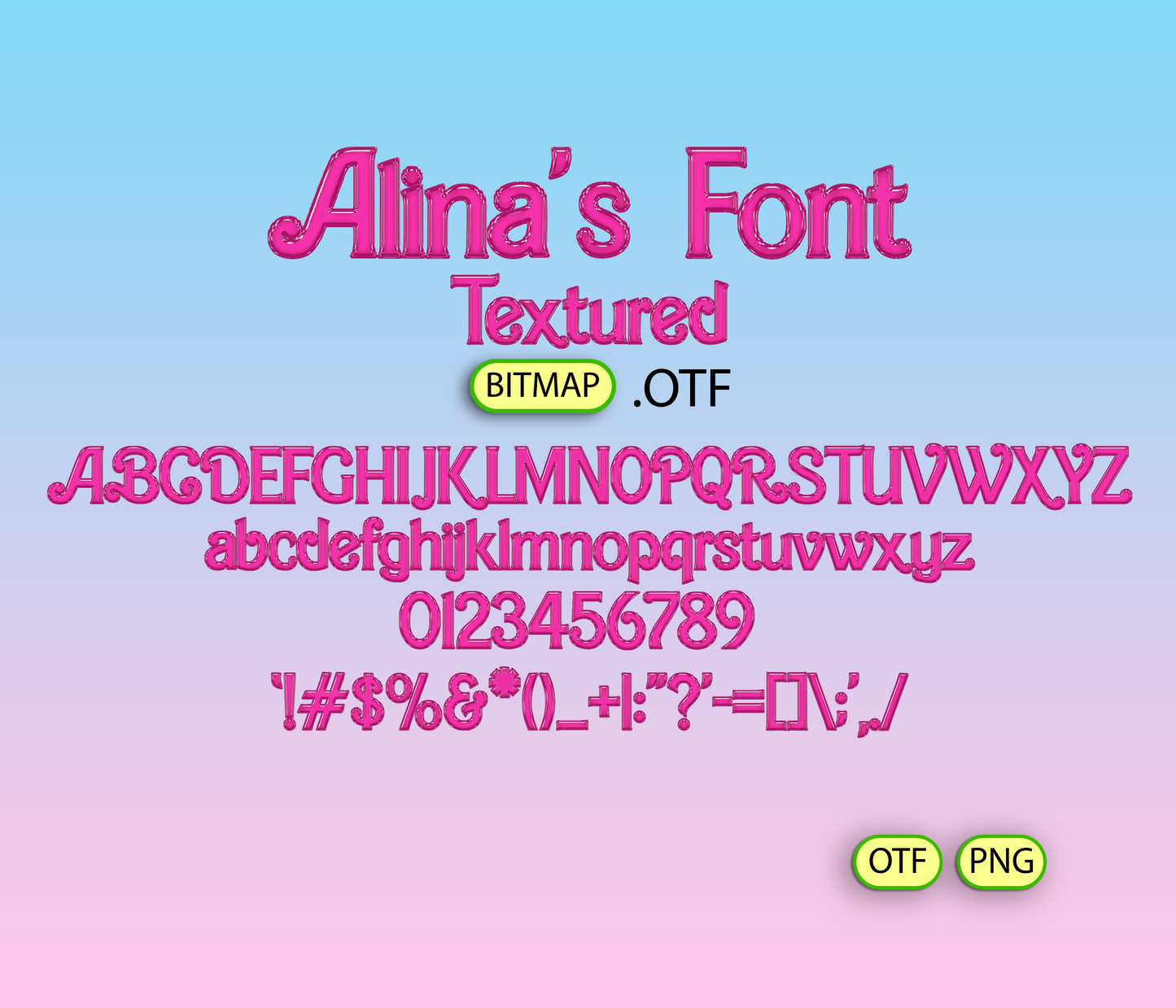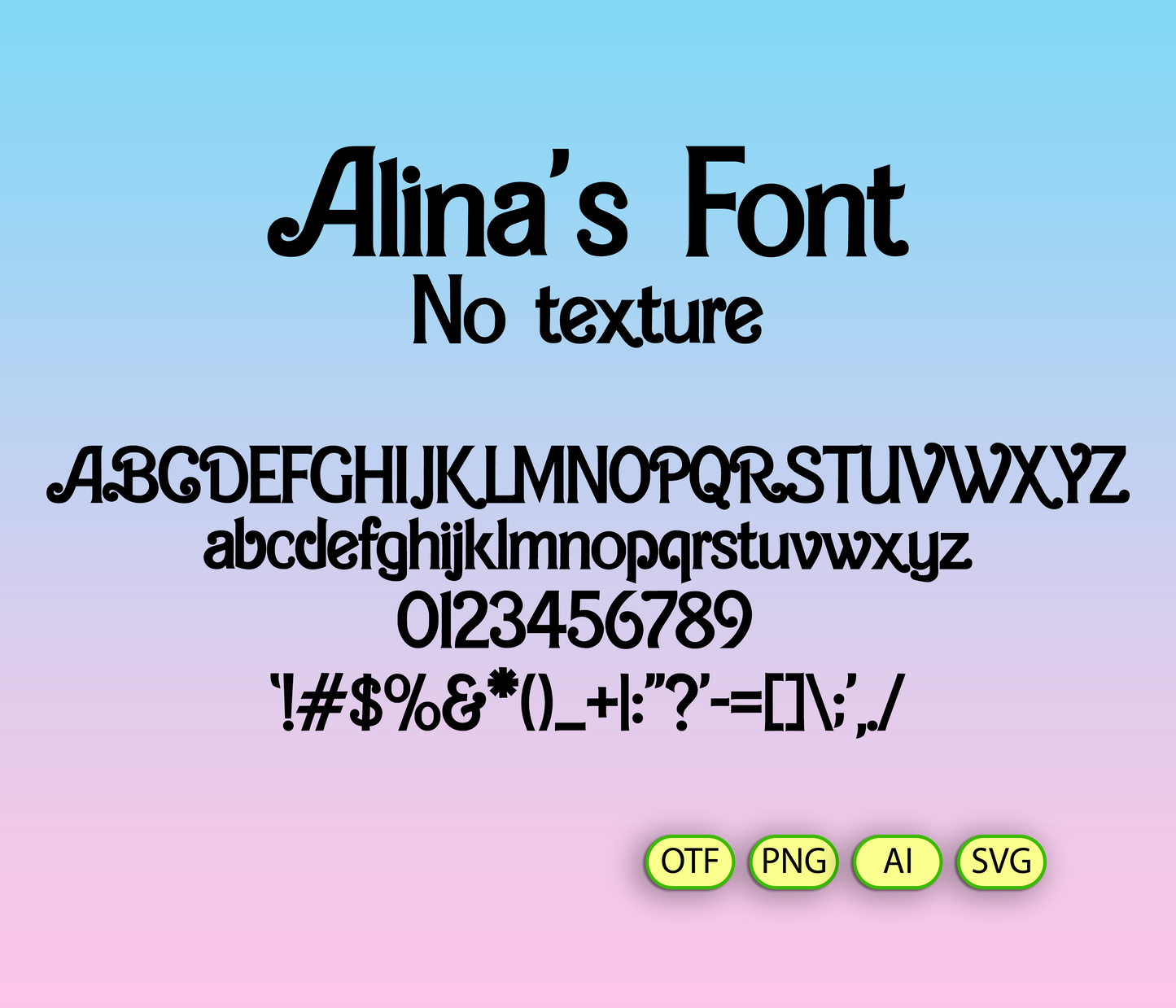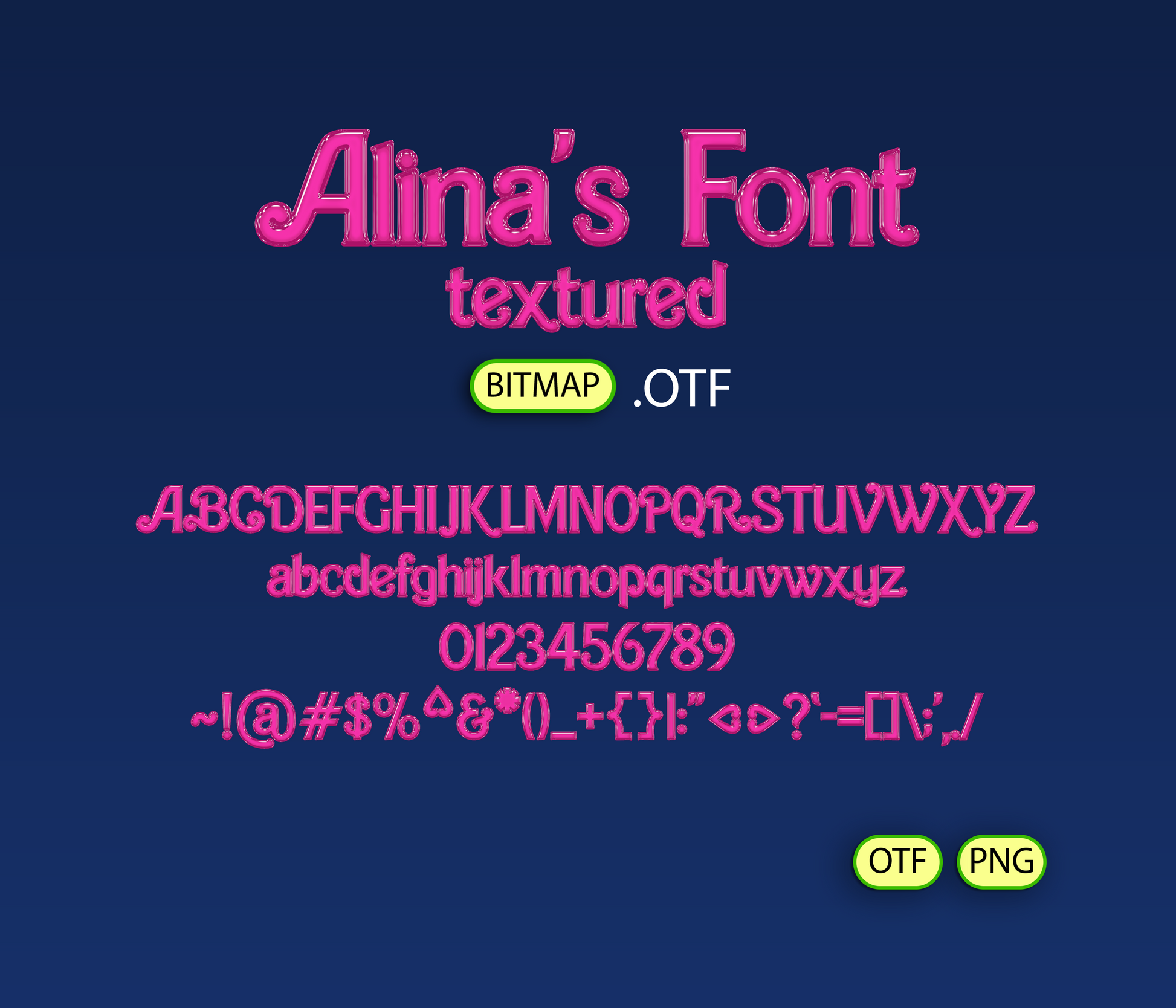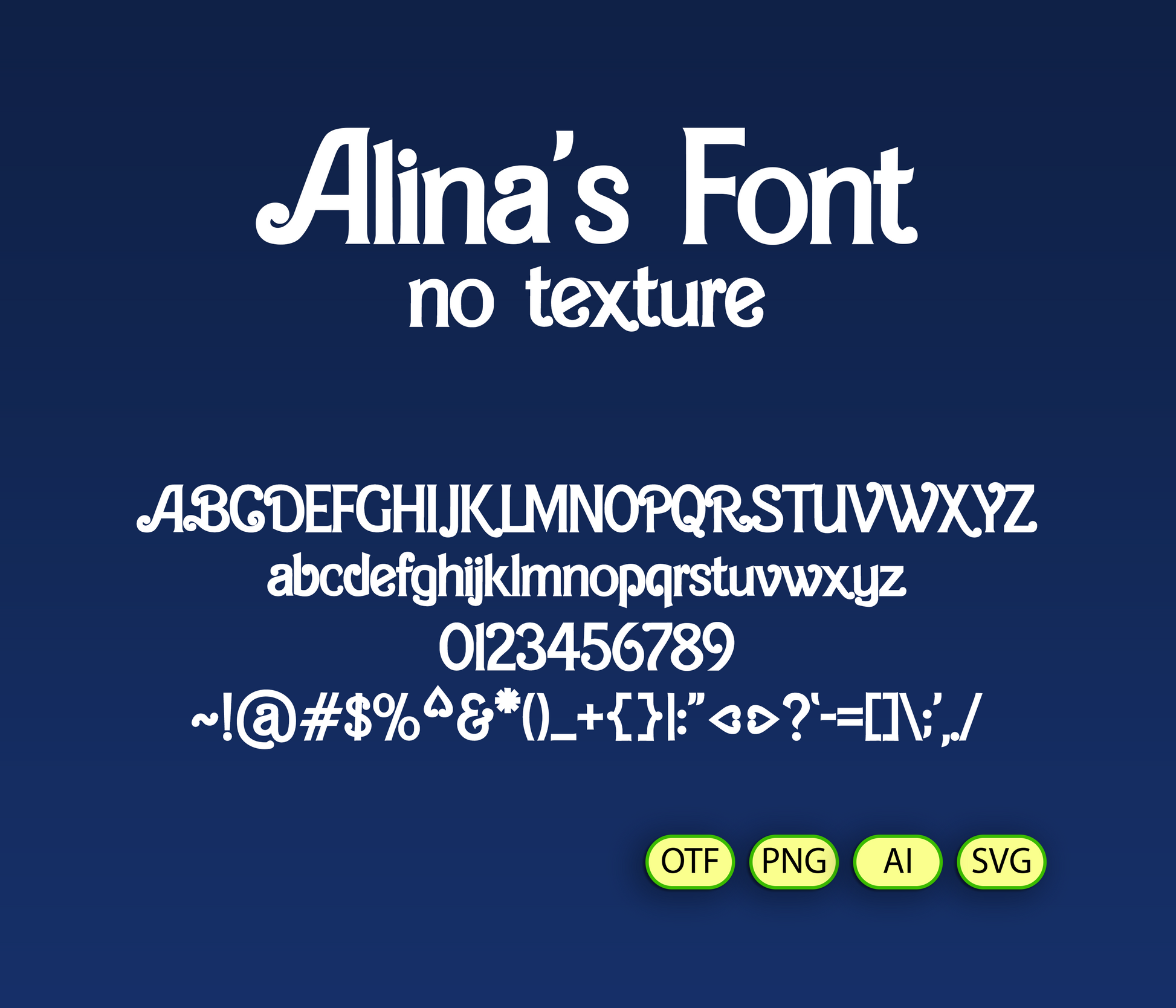
Glamour Girl Font Textured
Glamour Girl: A Graceful and Stylish Font for Fashion Doll Lovers
Do you love iconic fashion dolls and their fabulous world of style, fun, and adventure? Do you want to create your own projects with a font that captures the essence of a beloved doll brand? If so, you will love this amazing free fashion doll inspired font that is perfect for your Cricut machine.
What font is the Glamour Girl font?
It's a beautifully crafted typeface that embodies elegance, charm, and vibrant personality. Each character in this font has been designed with a flair that mirrors a unique fashion sense, blending classic femininity with a modern twist. The font features a complete set of characters, including alphabets, numbers, and special symbols, making it a versatile choice for a wide range of creative projects.
What Can You Do With The Glamour Girl Font:
The Glamour Girl Inspired Font turns text into a statement of style and inspiration. Its versatility makes it ideal for a variety of personalized projects and merchandise that celebrate the world of fashion dolls. Here are some specific uses:
1. Custom invitations for fashion-themed parties
2. Personalized fashion designs and apparel
3. Unique branding for beauty and lifestyle products
4. Customized stationery and scrapbooking projects
5. Themed website and blog designs for fashion enthusiasts
6. Personalized social media graphics and content
7. Handmade gift tags and greeting cards
8. Fashion-themed room decor and accessories
9. Customized phone cases and tech accessories
10. Personalized tote bags and fashion accessories
Whether you're creating content for a fashion-themed event, designing stylish merchandise, or just adding a touch of glamour to your projects, this font offers endless possibilities to bring the world of fashion dolls to life in your designs.